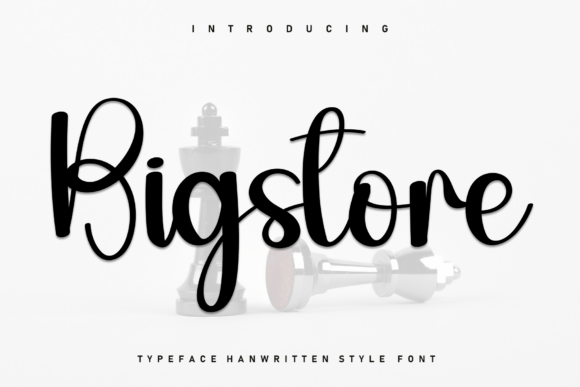
The Bigstore Font: A Relaxed yet Luxurious Addition to Your Design Arsenal
I’ll never forget the time I was working on a branding project for a high-end fashion client. I had spent hours pouring over design concepts, but something was missing. That’s when I stumbled upon the Bigstore font, a handwritten gem that looked like it was drawn with a marker. It was love at first sight! The relaxed, sporty feel of Bigstore instantly elevated my design, giving it a luxurious and elegant touch without feeling too formal. In this article, I’ll share my experience with Bigstore, its features, and how to make the most of it in your designs.
An Honest Review of Bigstore Font
What I Love About Bigstore ✨
- ✅ Relaxed and sporty feel that’s perfect for fashion, luxury, and lifestyle brands
- ✅ Handwritten with a marker-like quality that adds a personal touch
- ✅ Versatile and can be used for branding, logos, wedding supplies, greeting cards, and more
- ✅ Easy to read and understand, even in smaller sizes
- ⚠️ Limited use of uppercase letters, which can make it less suitable for headings or titles
- ⚠️ May not be the best choice for body text or long-form content due to its casual nature
The Story Behind Bigstore Font
Bigstore was designed by a team of creatives who wanted to create a font that captured the essence of luxury and elegance without feeling too formal. Inspired by the world of fashion and lifestyle, Bigstore is a reflection of the modern, sporty aesthetic that’s popular today. With its marker-like quality and relaxed feel, Bigstore is the perfect addition to any design project that needs a touch of sophistication and style.
Q: What is the best use for Bigstore font?
A: Bigstore is perfect for branding, logos, wedding supplies, greeting cards, fashion, lookbooks, marketing promotions, and any design project that requires a luxurious and elegant touch.
Q: Can I use Bigstore for body text?
A: While Bigstore is easy to read, its casual nature makes it less suitable for body text or long-form content. It’s best used for headings, titles, or short paragraphs.